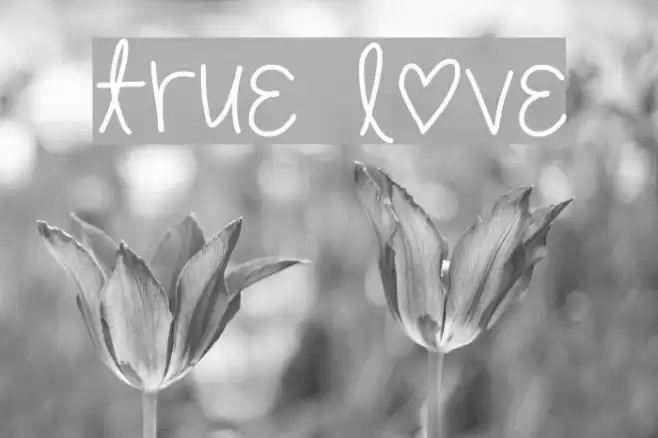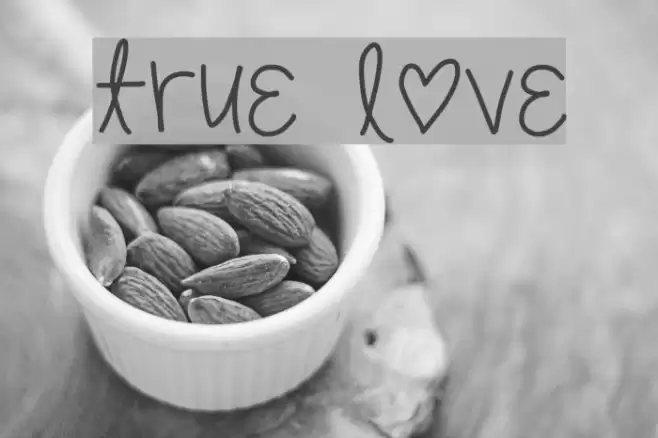
[true love] Font
[true love] Description
This font features a playful and whimsical handwritten style, characterized by its irregular strokes and casual appearance. The uppercase letters are tall and slightly narrow, while the lowercase letters maintain a consistent flow with rounded edges. Notably, the letter 'O' is replaced with a heart shape, adding a unique and charming touch. The numbers are simple and align well with the overall style, maintaining the same playful aesthetic. Special characters are included, with some decorative elements like swirls and stars, enhancing its creative appeal. This font exudes a friendly and approachable vibe, making it ideal for projects that require a personal touch.
A playful handwritten font with a whimsical and casual style from Uncategorized fonts.
- Proposed Projects: Greeting cards, children's books, playful branding, and personal invitations.
- Overall Style: Playful
- Use Case: Headlines, Logos, Informal Text